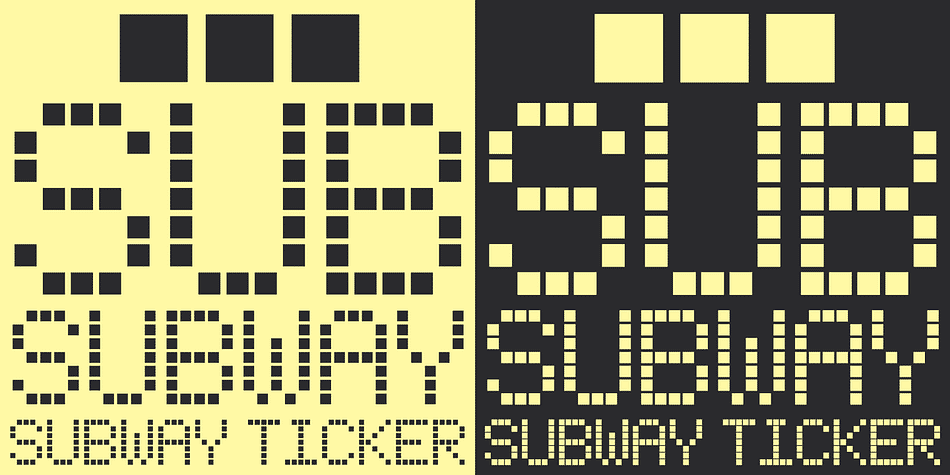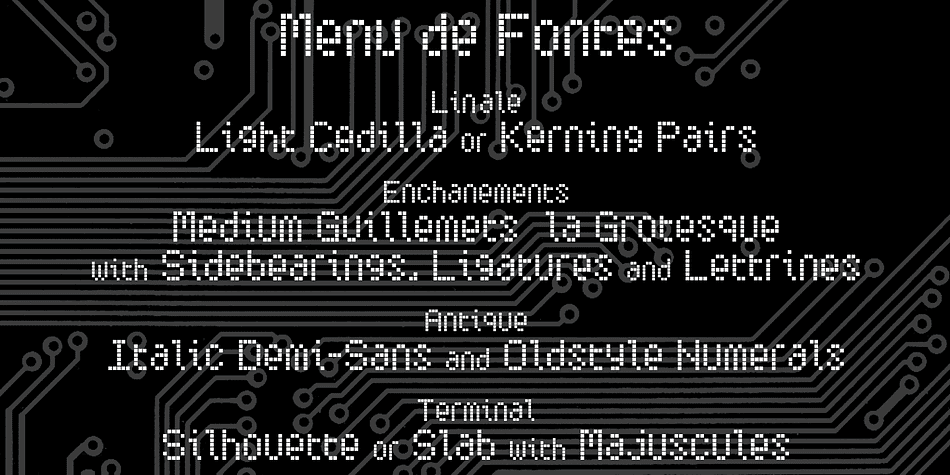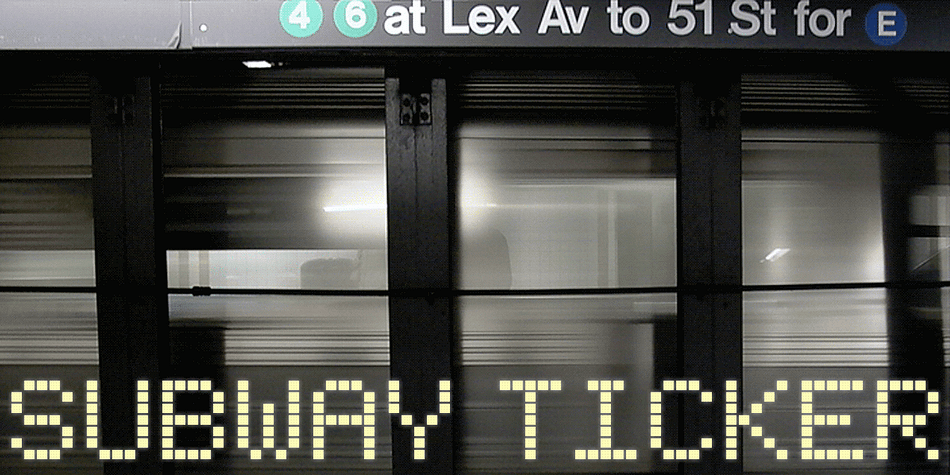
Subway Ticker is a display font family. This typeface has two styles and was published by K-Type.
Subway Ticker is based on a 5×7 grid, electronic display observed on a New York subway train in February 2005 en route to Coney Island. Also included is an updated ‘Grid’ variation of the font that is slightly more spaced out using a more precise grid structure.